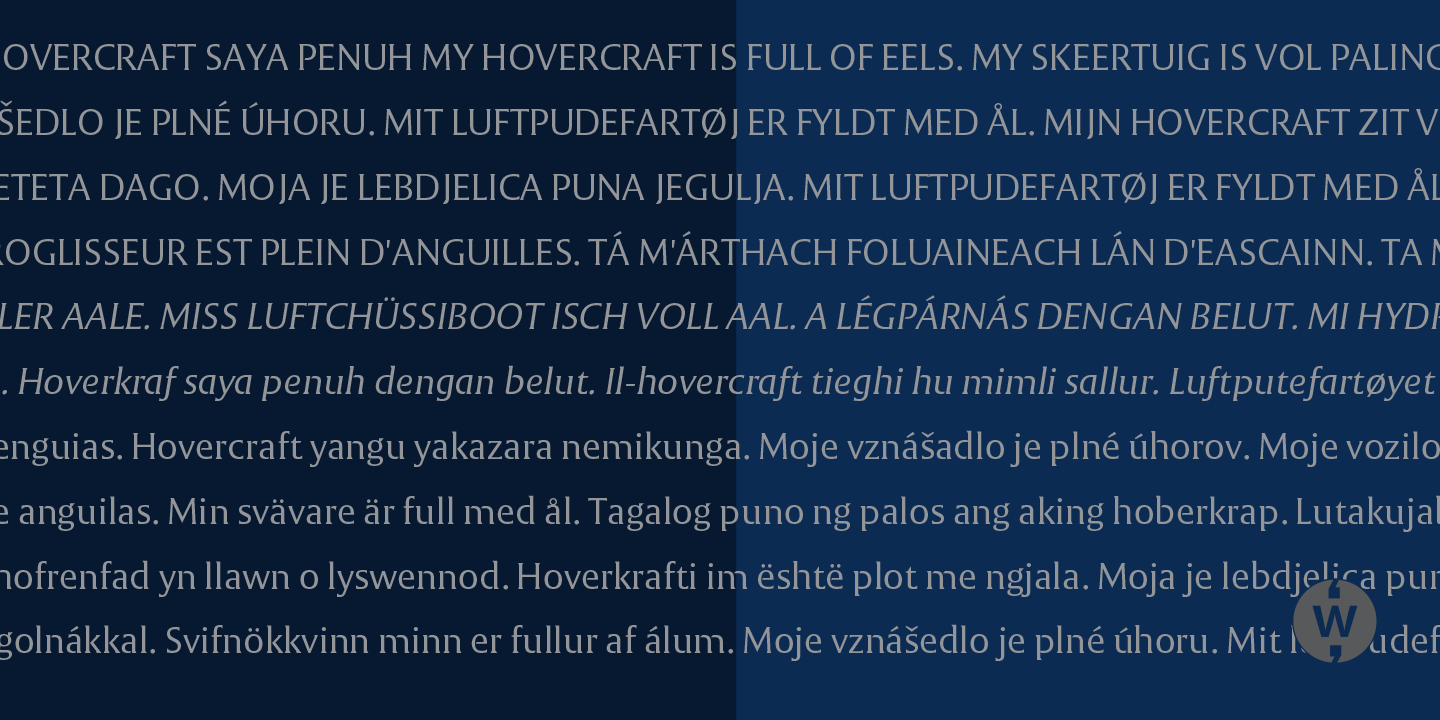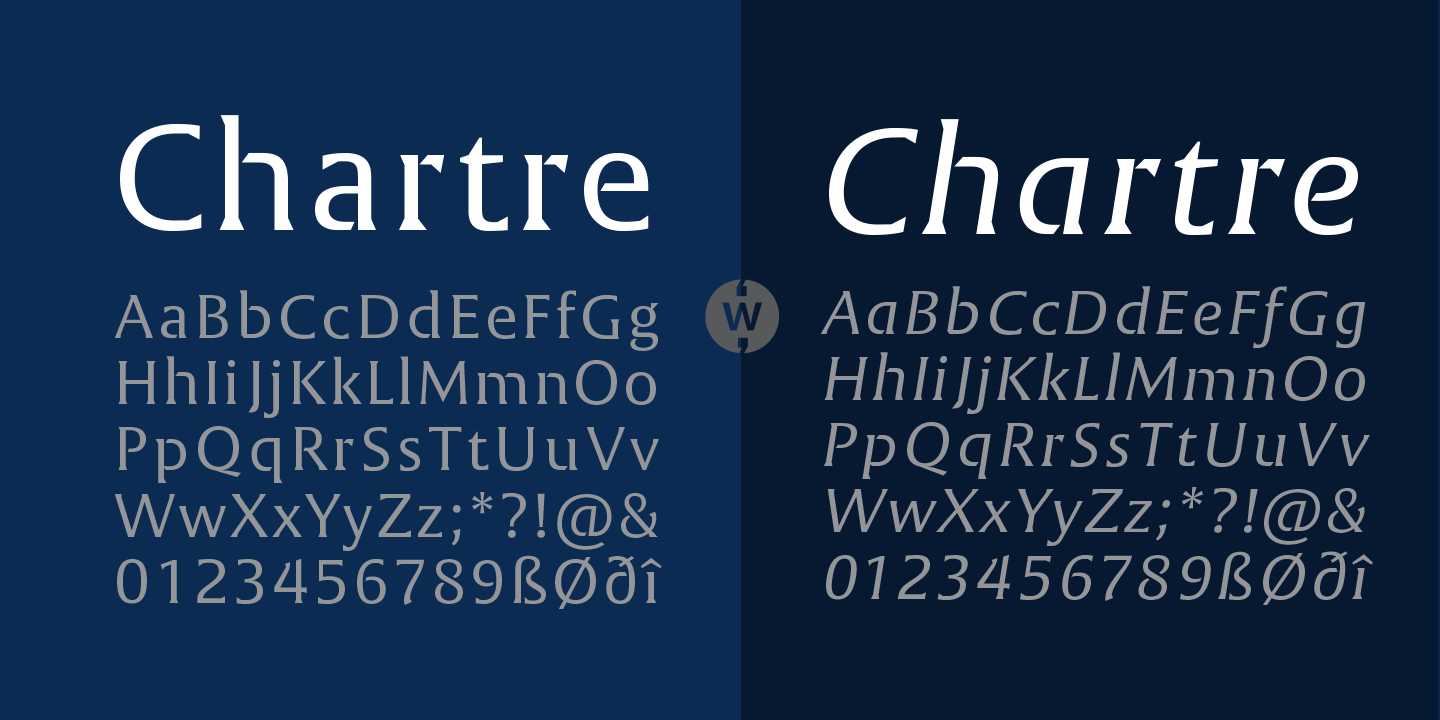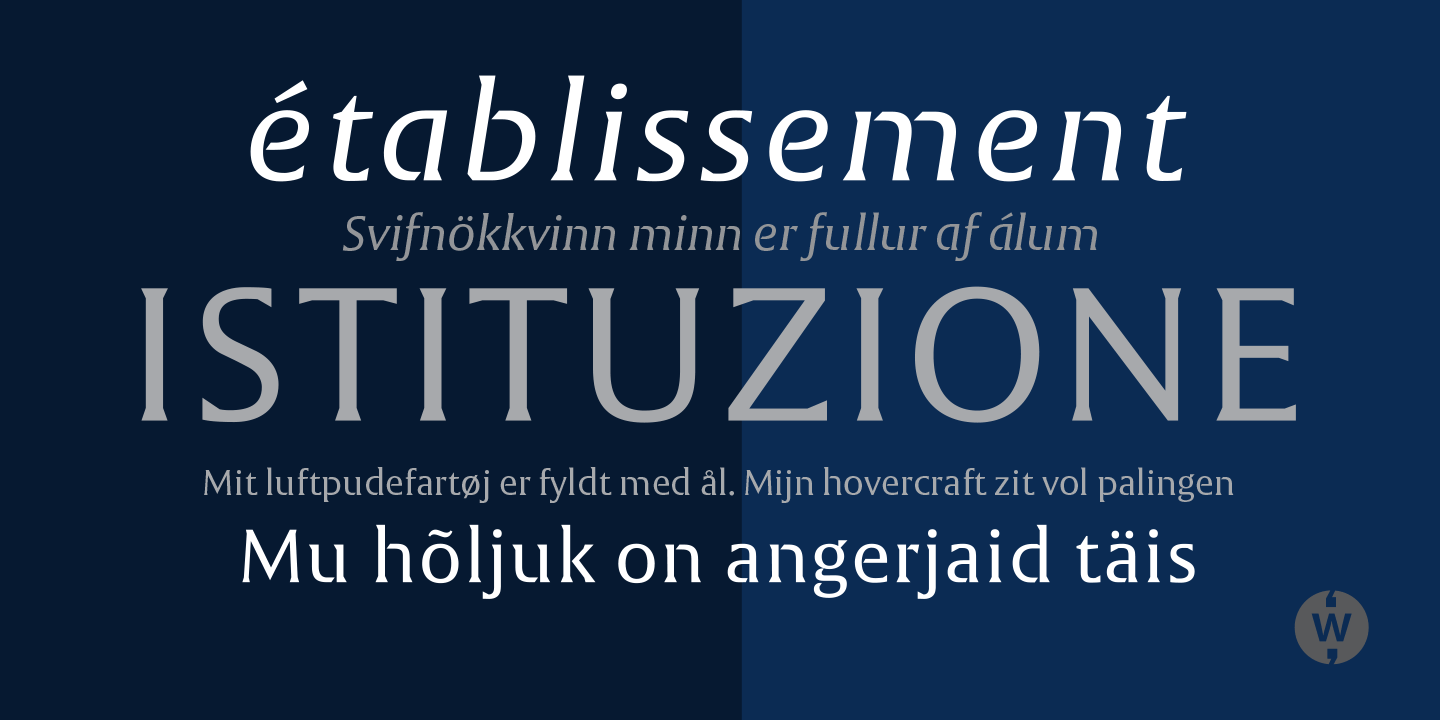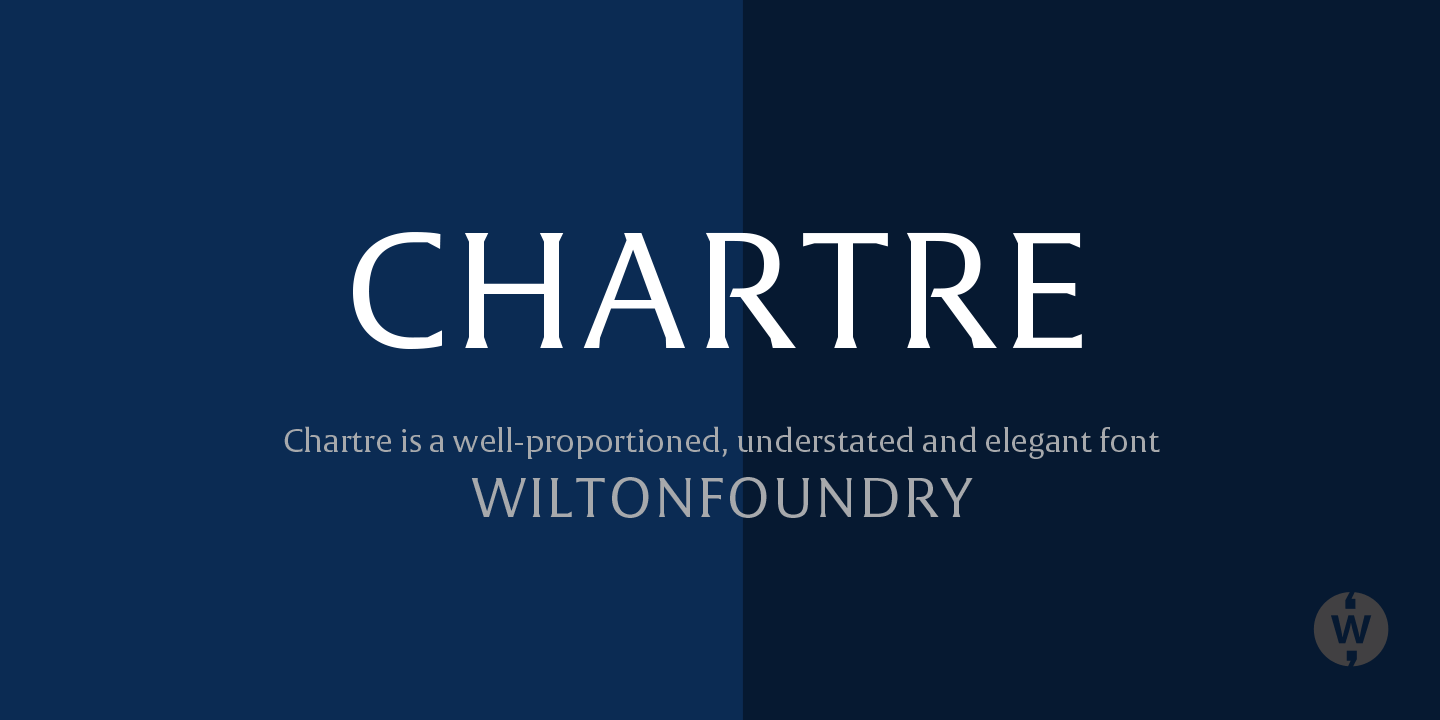
About Chartre
Chartre is a well-proportioned and understatedly elegant font. It is crisp, refined and distinguished. This is a classic that shines in headlines as well as text copy. The Chartre family his ideal for branding, collateral, advertising and packaging design.…